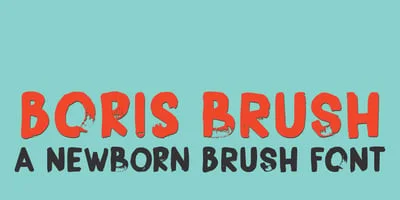
Boris Brush Font
Boris Brush Font delivers a bold and expressive typeface that captures the raw energy and artistic spontaneity of traditional brush lettering. Please note that you must purchase this font for commercial use, though you can download it for free for testing purposes.
This dynamic font excels in various design applications including street art posters, graffiti-style logos, urban fashion branding, music album covers, artistic exhibition titles, craft beer labels, handmade product packaging, and creative workshop signage. Its authentic character makes it perfect for projects requiring organic artistic expression with contemporary edge.
Boris Brush Font is exciting because it preserves the natural imperfections and fluid movements of actual brush strokes, featuring varying line weights, organic textures, and spontaneous character variations that breathe life into digital typography. The font captures the essence of traditional calligraphy while maintaining modern versatility and professional quality across different applications.
The Boris Brush Font family includes multiple expressive variations: Regular, Bold, Rough, and Condensed styles. Some versions feature ink splatter effects, brush texture overlays, and alternative character sets that enhance the handcrafted aesthetic. These family members provide designers with comprehensive options for creating authentic and visually compelling brush-lettered compositions.
Whether you're developing artistic branding, creative projects, or handmade product designs, Boris Brush Font offers unmatched authenticity and artistic flair. This font transforms ordinary text into captivating visual statements that communicate creativity and craftsmanship with distinctive brush-lettered character that defines contemporary artisanal design excellence.